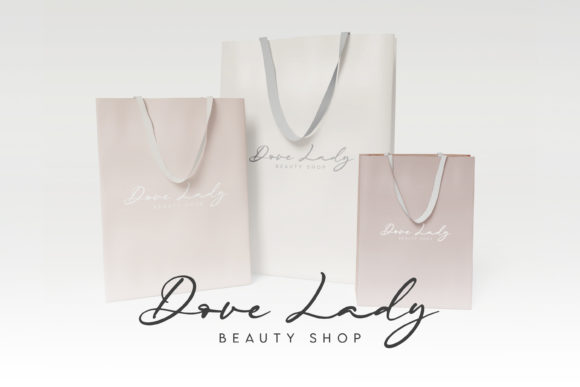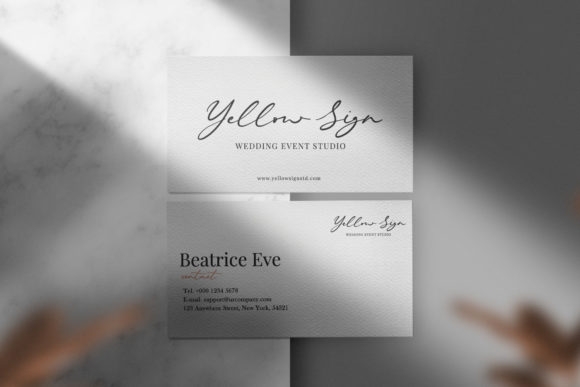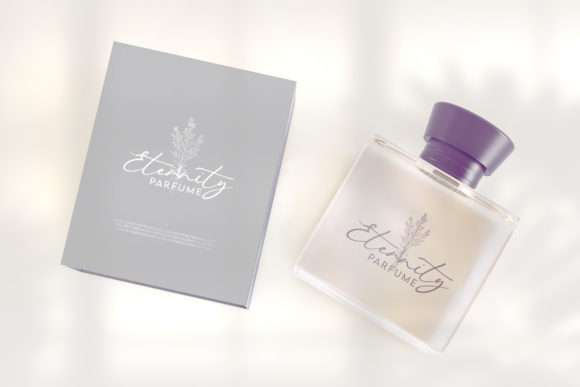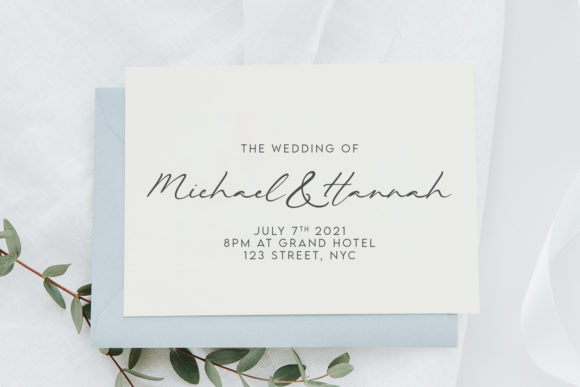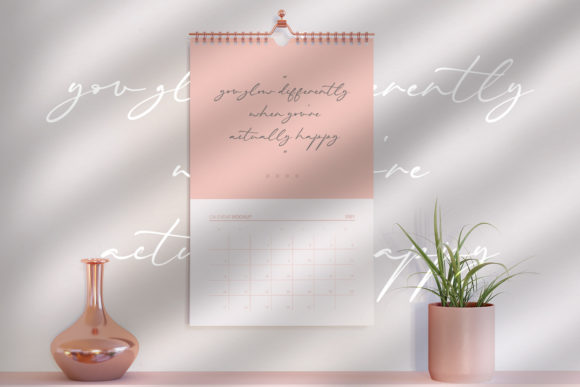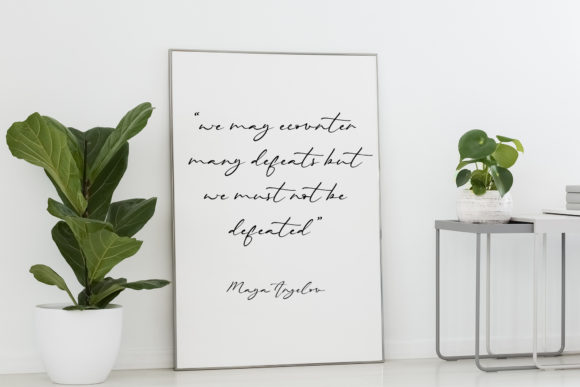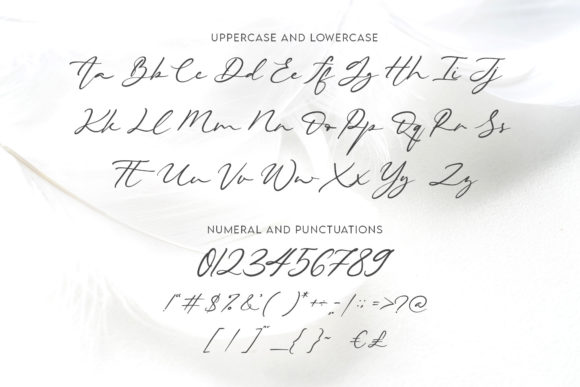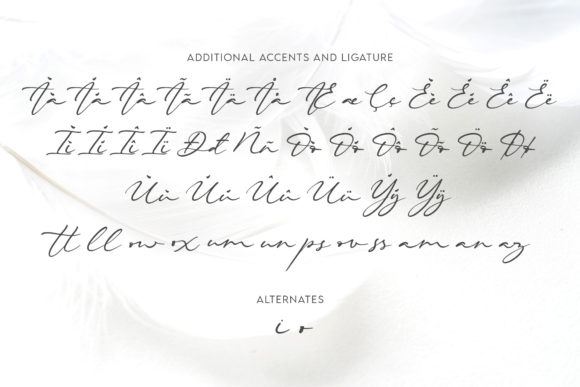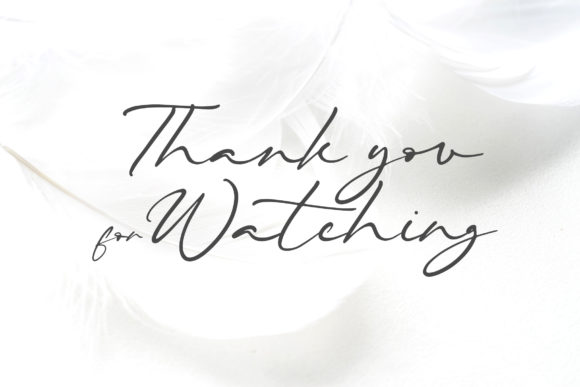
Beautiella Font
Beautiella is a charming and elegant font that exudes style and grace. With its thin and stylish vibe, this font adds a touch of sophistication to any design it is applied to. Whether you’re creating logos, branding materials, invitations, or any other project, Beautiella will make a lasting impression.
The beauty of Beautiella lies in its delicate and refined appearance. The thin strokes and elegant curves give the font a sense of grace and elegance, making it ideal for designs that require a touch of sophistication. It brings a sense of modernity and class to your creations, elevating them to a higher level.
Beautiella’s versatility allows it to be used in a wide range of design applications. It works well for logos, where its sleek and stylish nature can create a memorable and professional brand identity. The font also shines in branding materials such as business cards, letterheads, and packaging, where its thin and elegant form adds a touch of luxury and refinement.
In addition to branding, Beautiella can enhance various types of invitations and stationery. From wedding invitations to event flyers, the font’s elegant and stylish aesthetic adds a sense of sophistication and sets the right tone for your special occasion. Its thin and graceful letters bring an air of elegance and allure, creating a visually captivating design.
Furthermore, Beautiella’s thin and stylish vibe makes it suitable for digital designs, including website headers, social media graphics, and blog post titles. It adds a contemporary and refined touch to your online presence, helping your content stand out and leave a lasting impression on your audience.
In conclusion, Beautiella is a charming and elegant font that adds a touch of sophistication and style to your designs. Its thin and stylish vibe makes it versatile and suitable for various design projects, from logos and branding materials to invitations and digital graphics. Embrace the charm and elegance of Beautiella and watch your designs come to life with a sense of grace and sophistication.